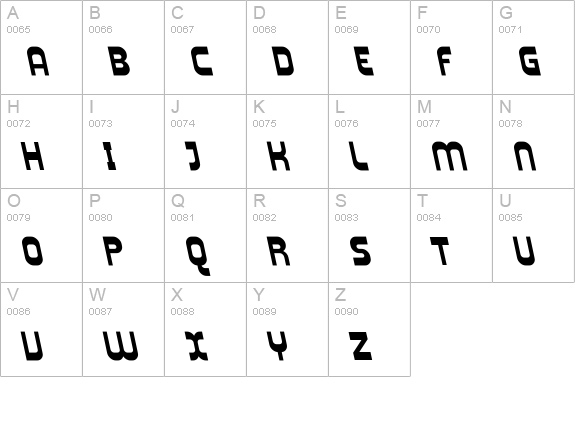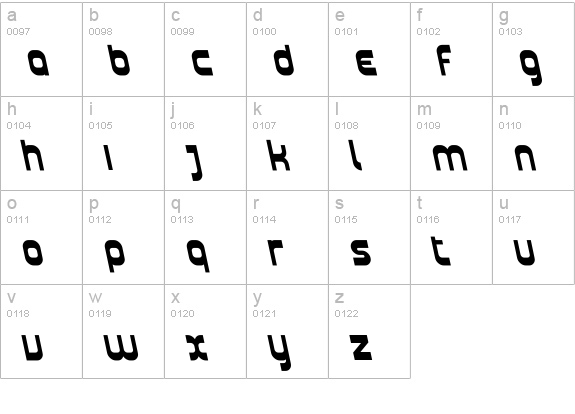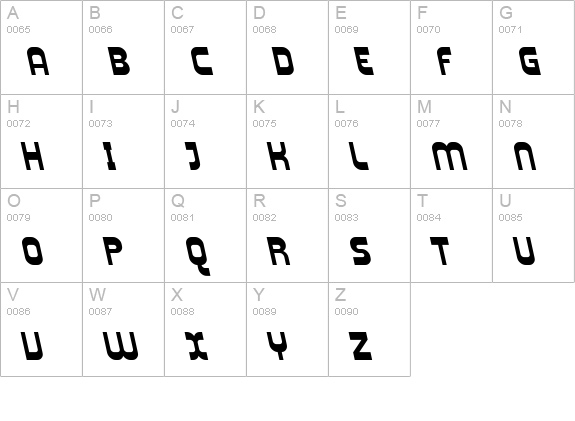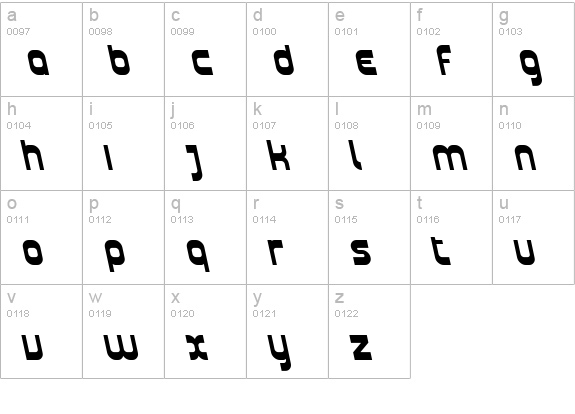
Plasmatica Rev Bold Italic is a strong, high-contrast, italic variant in the Plasmatica typeface family \xE2\x80\x94 well suited to headlines, attention-grabbing titles, and strong calls-to-action.
Plasmatica Rev Bold Italic font is a mesmerizing and captivating typeface that effortlessly combines boldness and elegance, making it an ideal choice for designs that demand attention and sophistication. Its sleek and stylish curves create a unique visual impact, ensuring your text stands out from the crowd. This font exudes a sense of power and confidence with its strong and slanted letterforms. The boldness of the strokes adds a touch of drama, while the italicized slant infuses a subtle sense of movement and dynamism. Plasmatica Rev Bold Italic effortlessly balances these elements, resulting in a visually striking and aesthetically pleasing font. Whether you are designing a logo, creating eye-catching headlines, or crafting visually appealing posters, Plasmatica Rev Bold Italic font will elevate your design to new heights. Its versatility allows it to excel in both print and digital media, ensuring your message is communicated effectively across various platforms. What sets Plasmatica Rev Bold Italic apart is not only its stunning design but also its accessibility. This font is freely available to download at FontsMarket.com, making it a valuable asset for designers seeking high-quality typefaces without breaking the bank. Its availability ensures that creativity knows no bounds, allowing designers from all walks of life to access and utilize this remarkable font. Plasmatica Rev Bold Italic font is a powerful tool that will transform your design projects into captivating visual experiences. Its boldness, elegance, and availability make it a must-have for designers who strive for excellence. Elevate your designs with Plasmatica Rev Bold Italic font and unleash your creative potential.